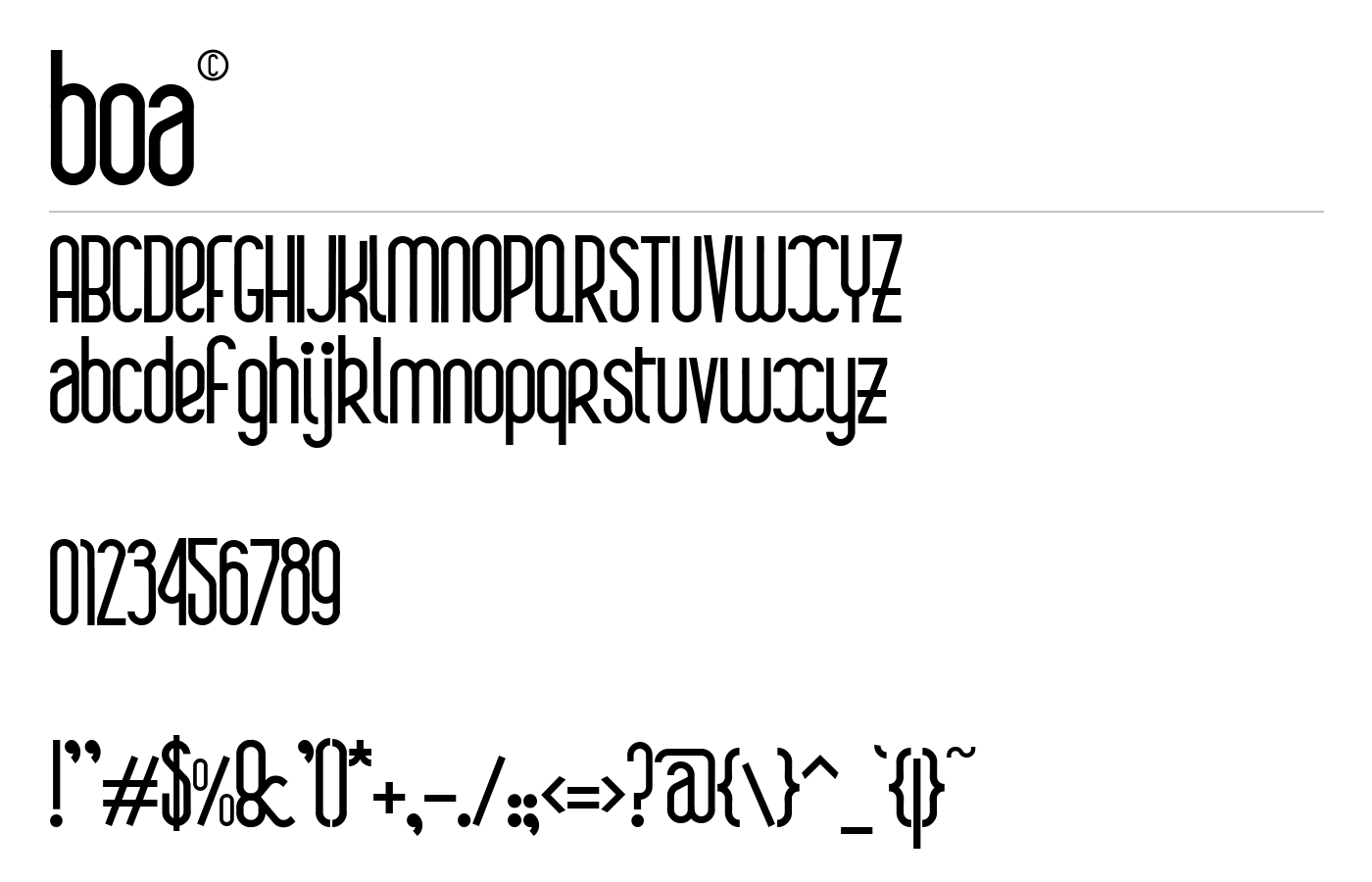
Boa© is a narrow, tall sans serif font with a modern and sleek feel, featuring consistent stroke weight and minimal contrast. Its condensed letterforms and geometric shapes create a clean, stylish look well suited for contemporary branding, headlines, and editorial design where a bold, distinctive presence is desired. This font works particularly well in fashion or tech contexts due to its elegant yet approachable personality.
| Designer | alien foundery/thibault dietlin |